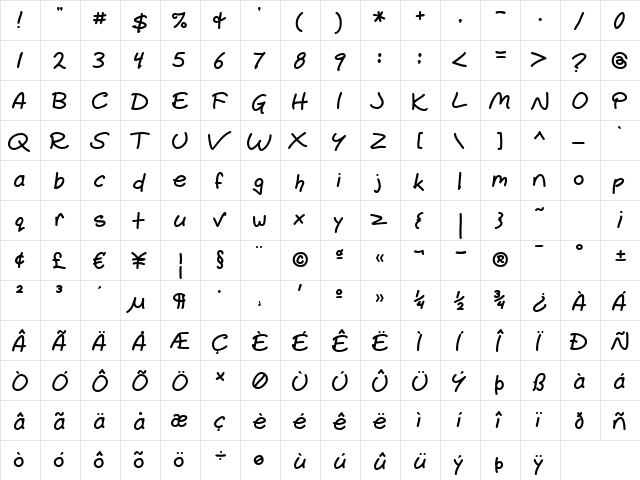
Gemelli Regular
Design Context for Gemelli Typeface
Gemelli is a composed and adaptable typeface that performs quietly and consistently across a wide range of design contexts.